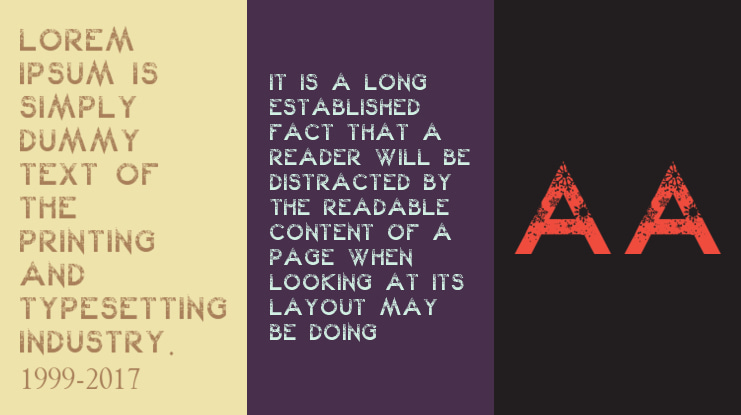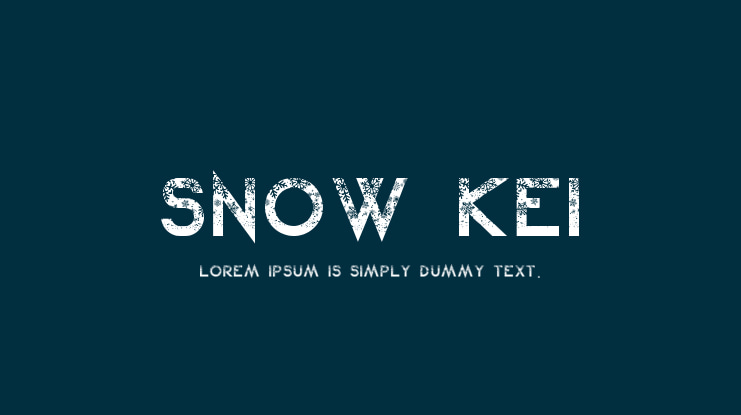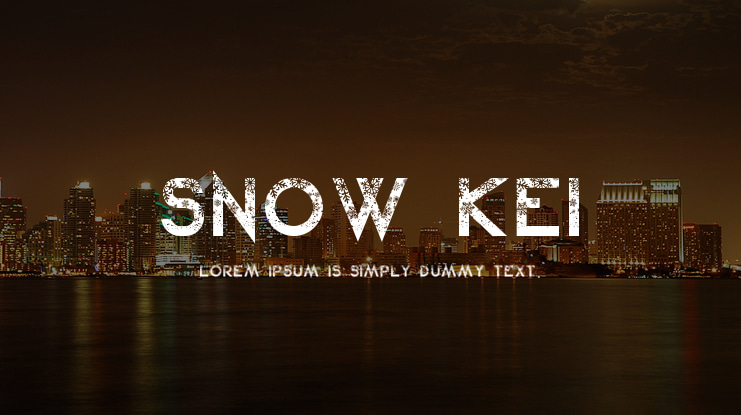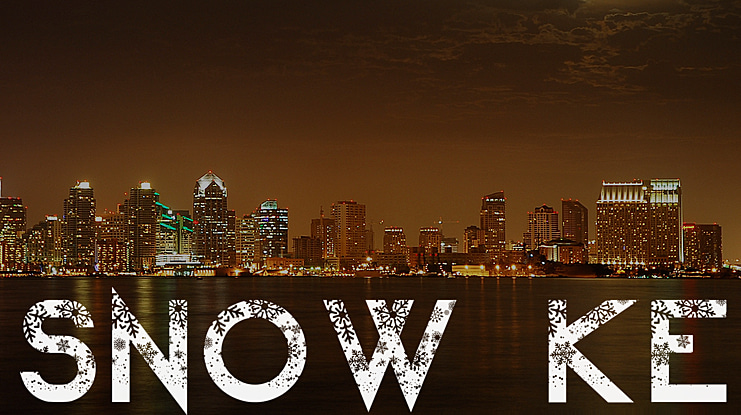
Snow Kei Font
Snow Kei Display Font - a new font display with winter nuances in the style of snowflakes, perfect for an extraordinary project this winter.